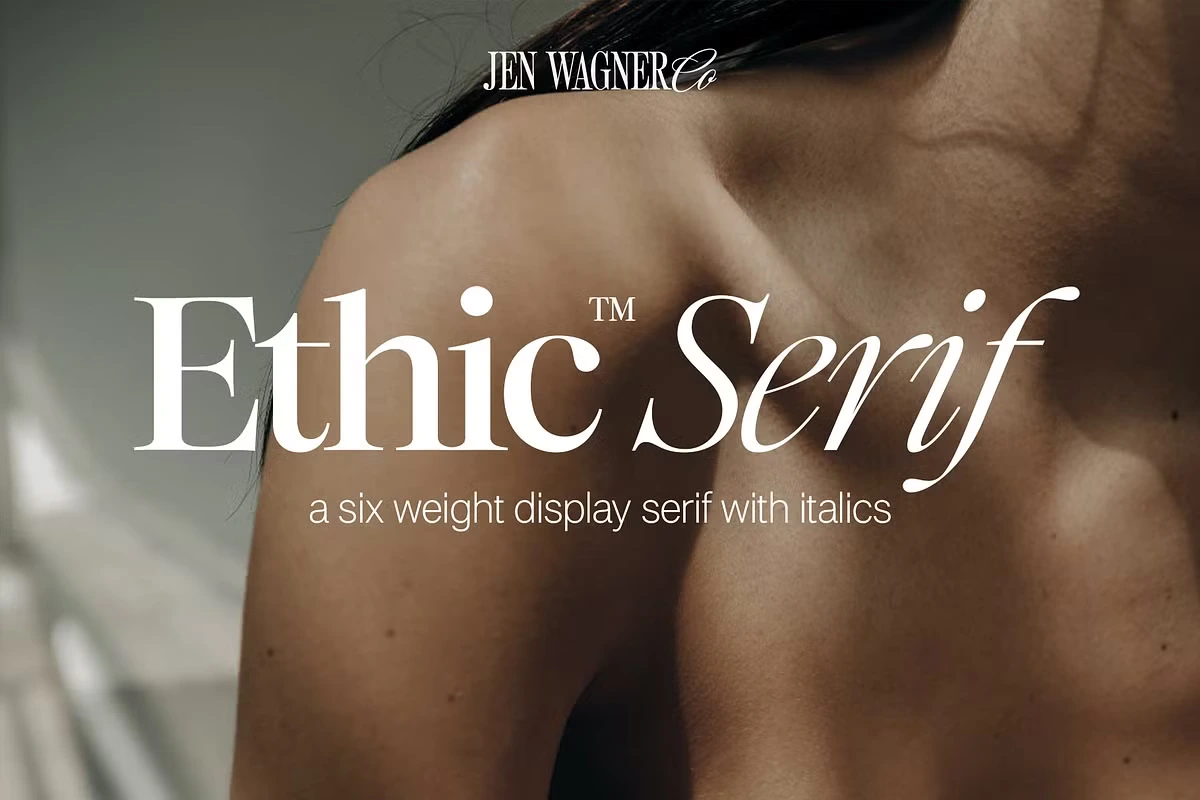
Ethic™ Serif is a beautifully crafted serif typeface designed to stand out and make a bold statement. With its refined and classic design, this font is perfect for large-scale headers, eye-catching text elements, and elegant quotes. The high contrast, organic curves, and sharp italics bring a sense of sophistication and luxury, making it ideal for branding projects, editorial layouts, and stylish presentations. Whether you want to create a timeless look or add a modern touch to your typography, Ethic Serif offers versatility and elegance in every letter.
This stunning font family comes in six different weights, allowing for flexible design choices that suit various creative needs. From light and airy styles to bold and impactful options, Ethic Serif adapts effortlessly to any project. It pairs beautifully with other modern typefaces, such as Neue Swiss, enhancing its visual appeal. Designed to capture attention, Ethic Serif is the ultimate choice for designers who want their text to make a lasting impression.
Ethic Serif Font Family